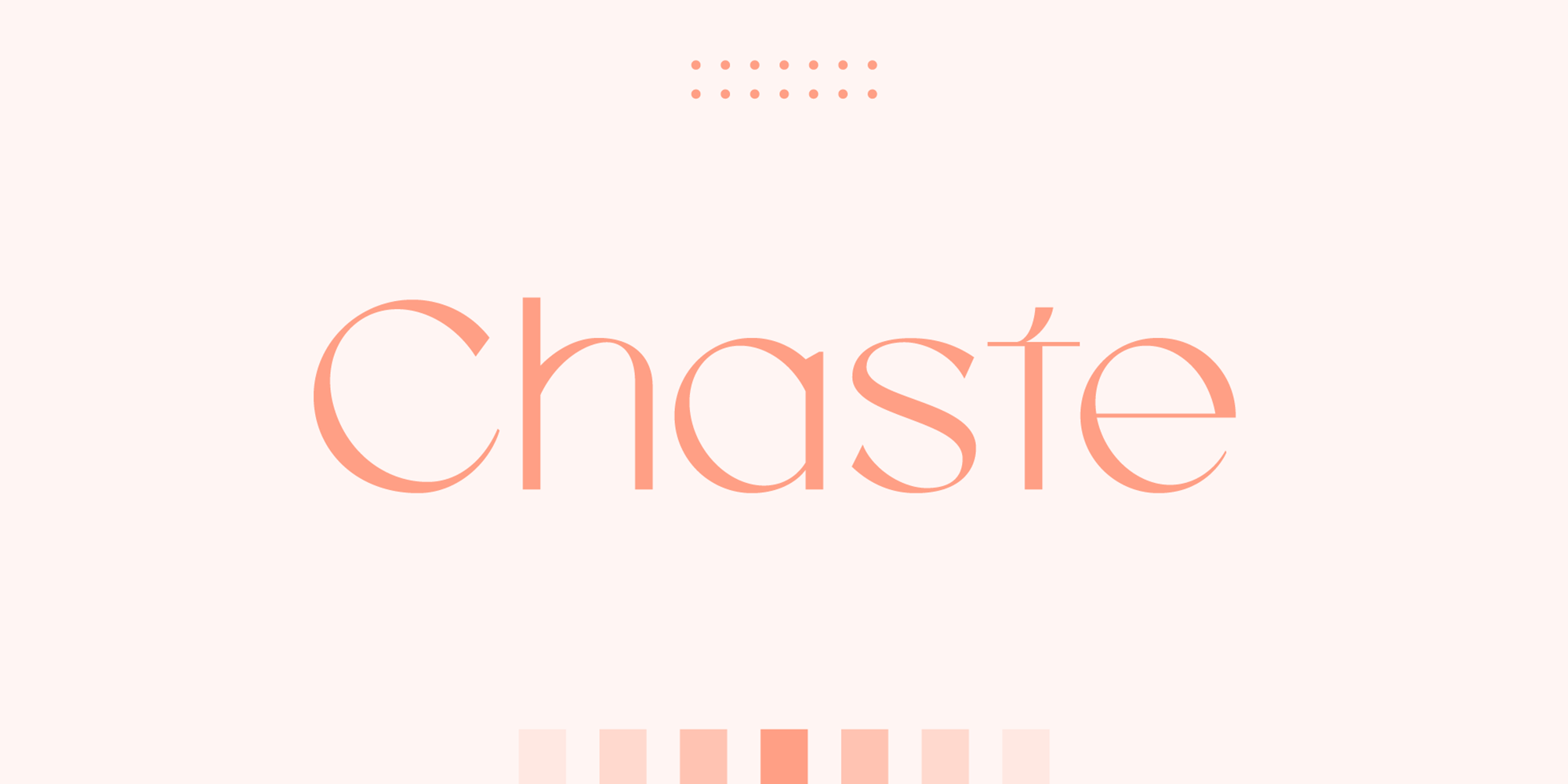
Chaste Font is a pristine and elegantly refined typeface, perfectly suited for projects that demand a sense of purity, understated beauty, and sophisticated simplicity. Imagine it gracing the luxurious branding for high-end fashion or bridal collections, adding a delicate yet distinguished touch to fine art prints, or providing a serene aesthetic for spiritual and wellness retreats. It's also an excellent choice for crafting exquisite invitations for elegant events, designing minimalist book covers, or bringing a clean, timeless flair to editorial layouts and personal portfolios. If you're looking to convey grace, clarity, and an undeniable sense of subtle perfection, Chaste Font is an outstanding selection.
What makes Chaste Font so exciting? It’s its unique ability to combine classic proportions with a remarkably clean and uncluttered design, resulting in a font that feels both traditional and refreshingly modern. This font often features carefully balanced letterforms, precise spacing, and a gentle rhythm that contribute to an exceptionally pleasant reading experience. Its inherent elegance ensures that your content is presented with dignity and clarity, allowing the message to shine without distraction. Designers will appreciate its versatile application in lending an air of established quality and artistic integrity to any project, ensuring that your visuals resonate with both contemporary taste and a timeless sense of refined beauty.
The Chaste Font family is typically designed to offer a comprehensive range of weights and styles, providing extensive flexibility for designers to create nuanced typographic compositions. You can generally expect to find variations such as Light, Regular, Medium, Bold, and potentially a Thin or Display weight, often accompanied by matching italic versions. This extensive family ensures that Chaste Font can be used to create sophisticated typographic hierarchies, maintain consistent branding across diverse mediums, and offer flexible design solutions for both print and digital environments. Discover the unwavering purity and sophisticated charm of Chaste Font Free Download for your next design masterpiece.